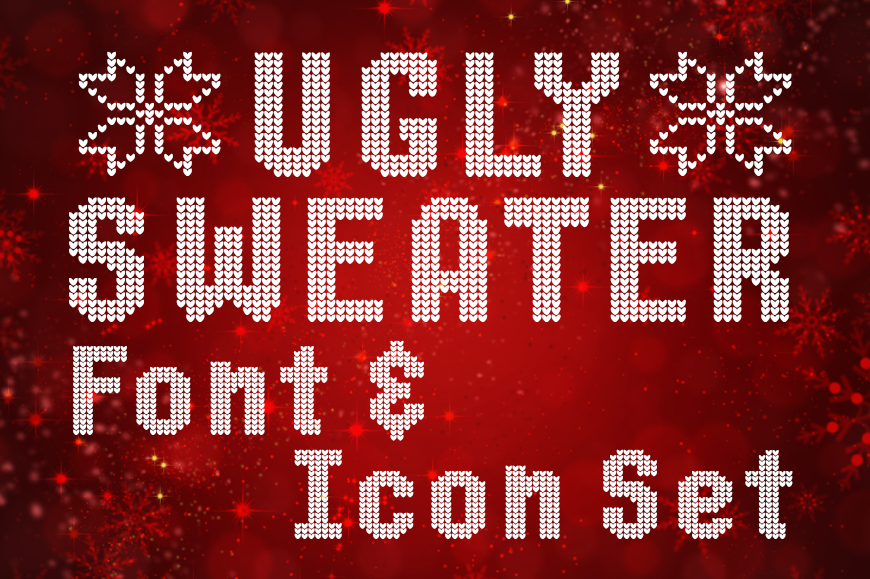
Ugly Sweater Font & Icon Set
Looking for an Ugly Sweater font? Look no further. This font set comes with Uppercase, lowercase ugly sweater characters, all keyboard characters plus various holiday symbols. This set is TrueType (.ttf) fonts you can install and design using any program that accepts TrueType fonts.